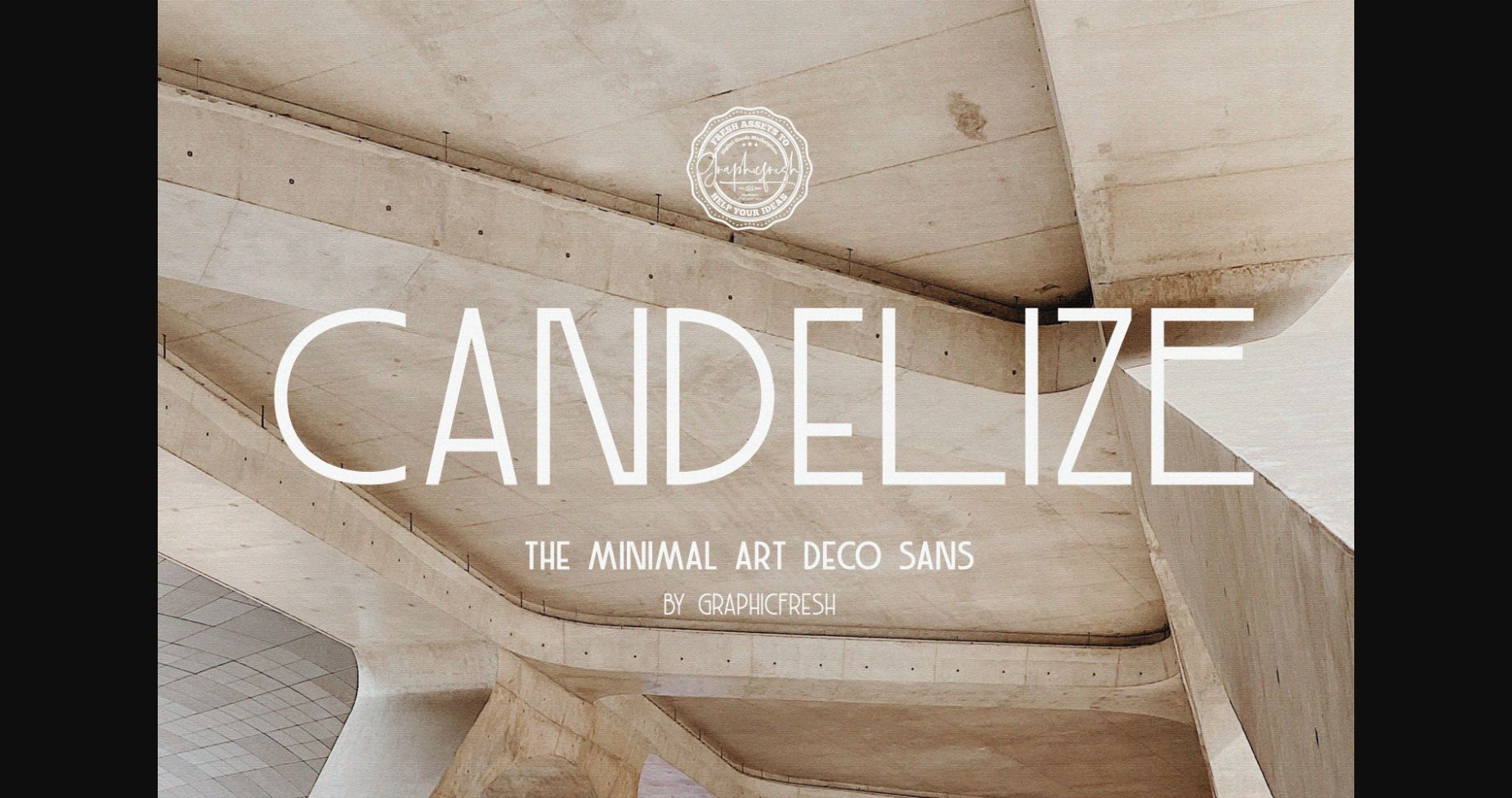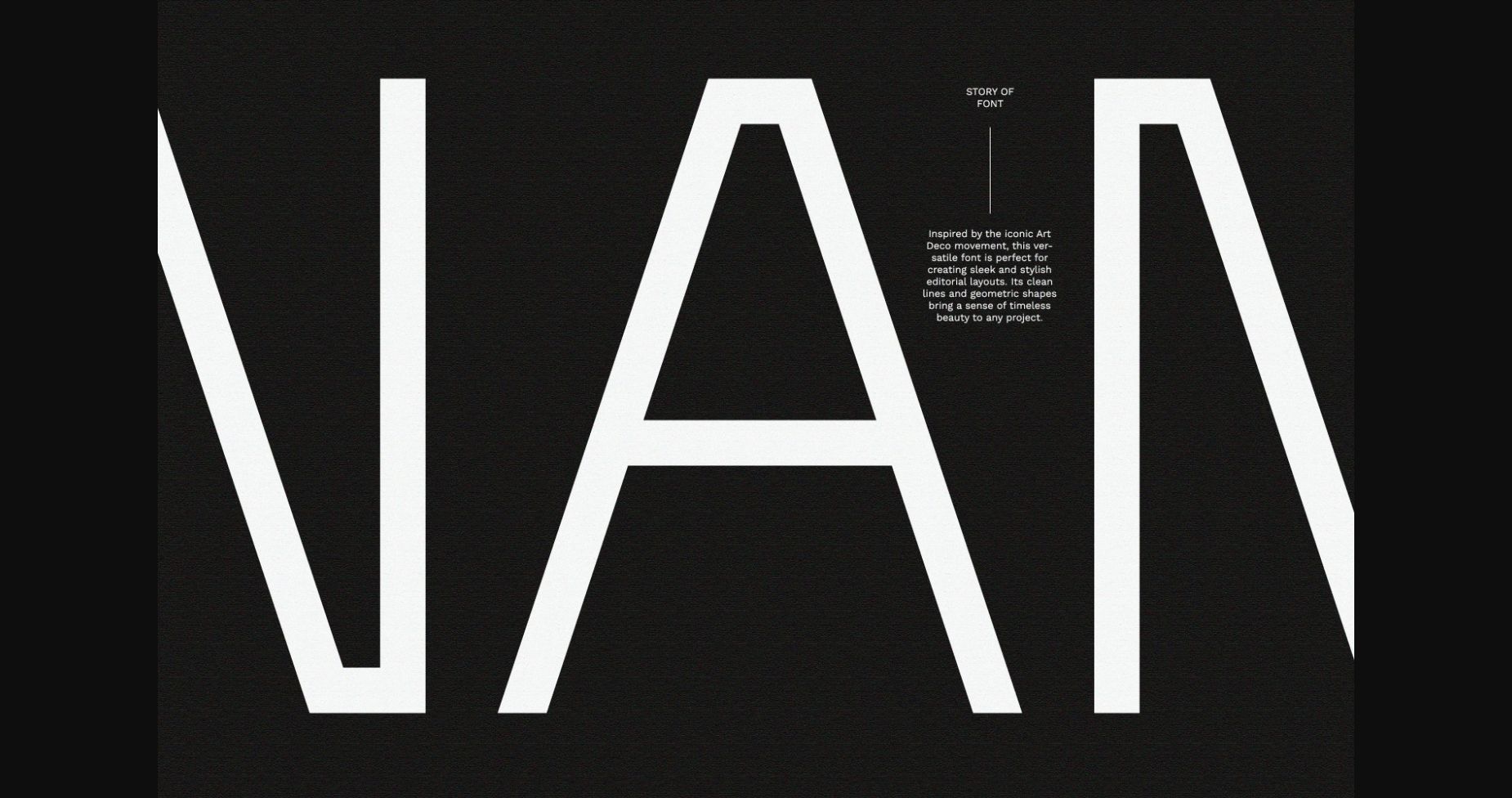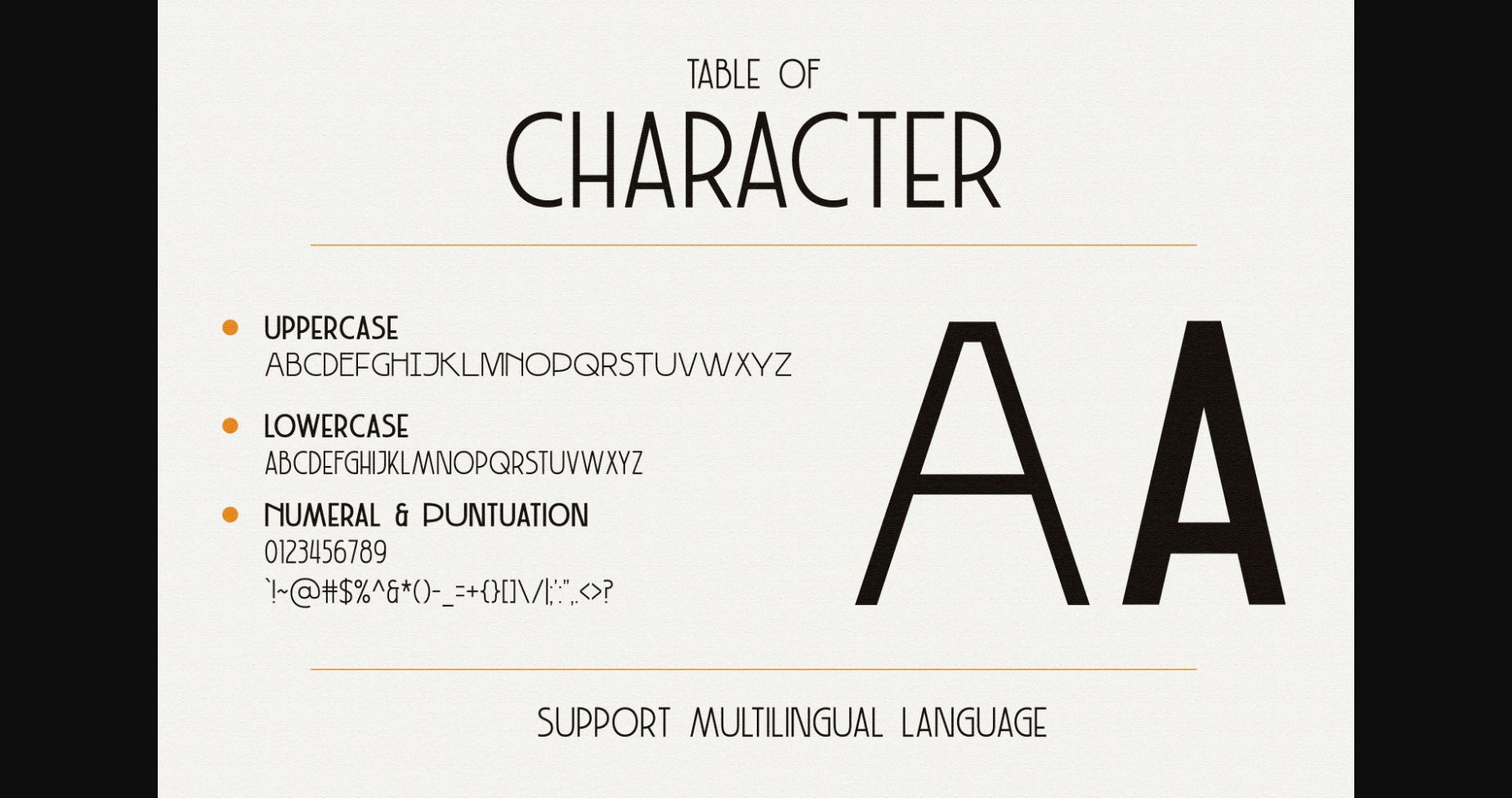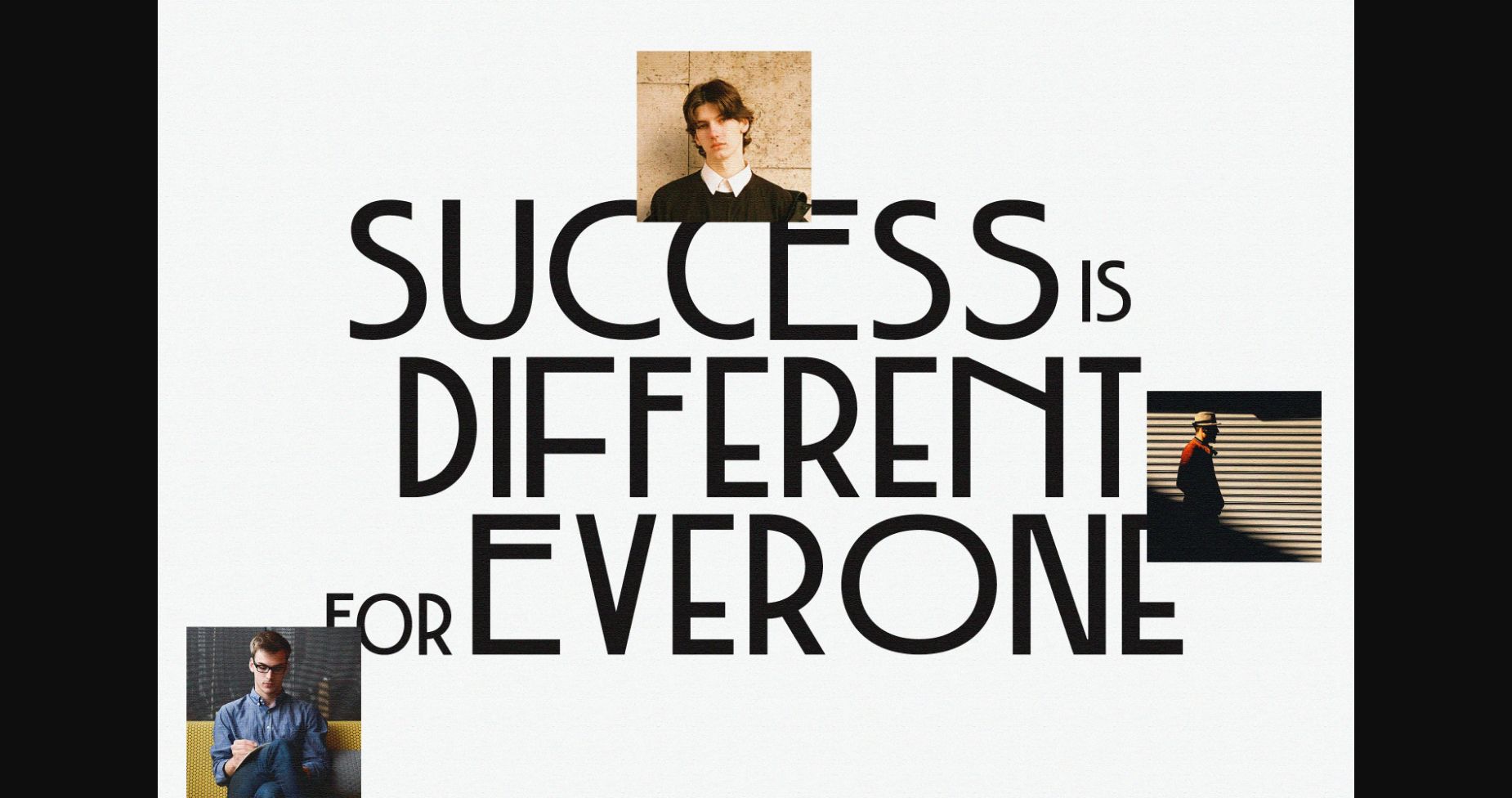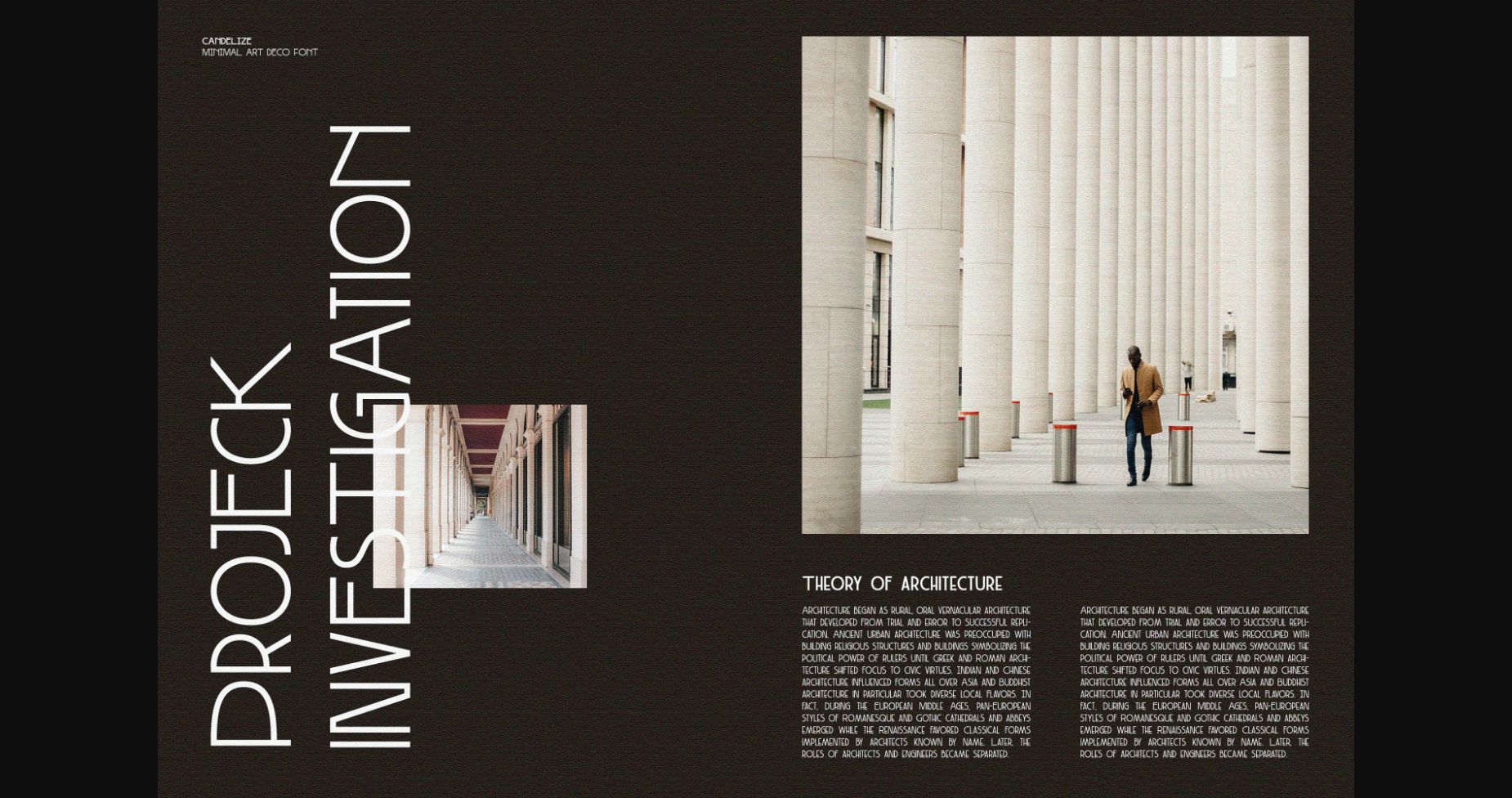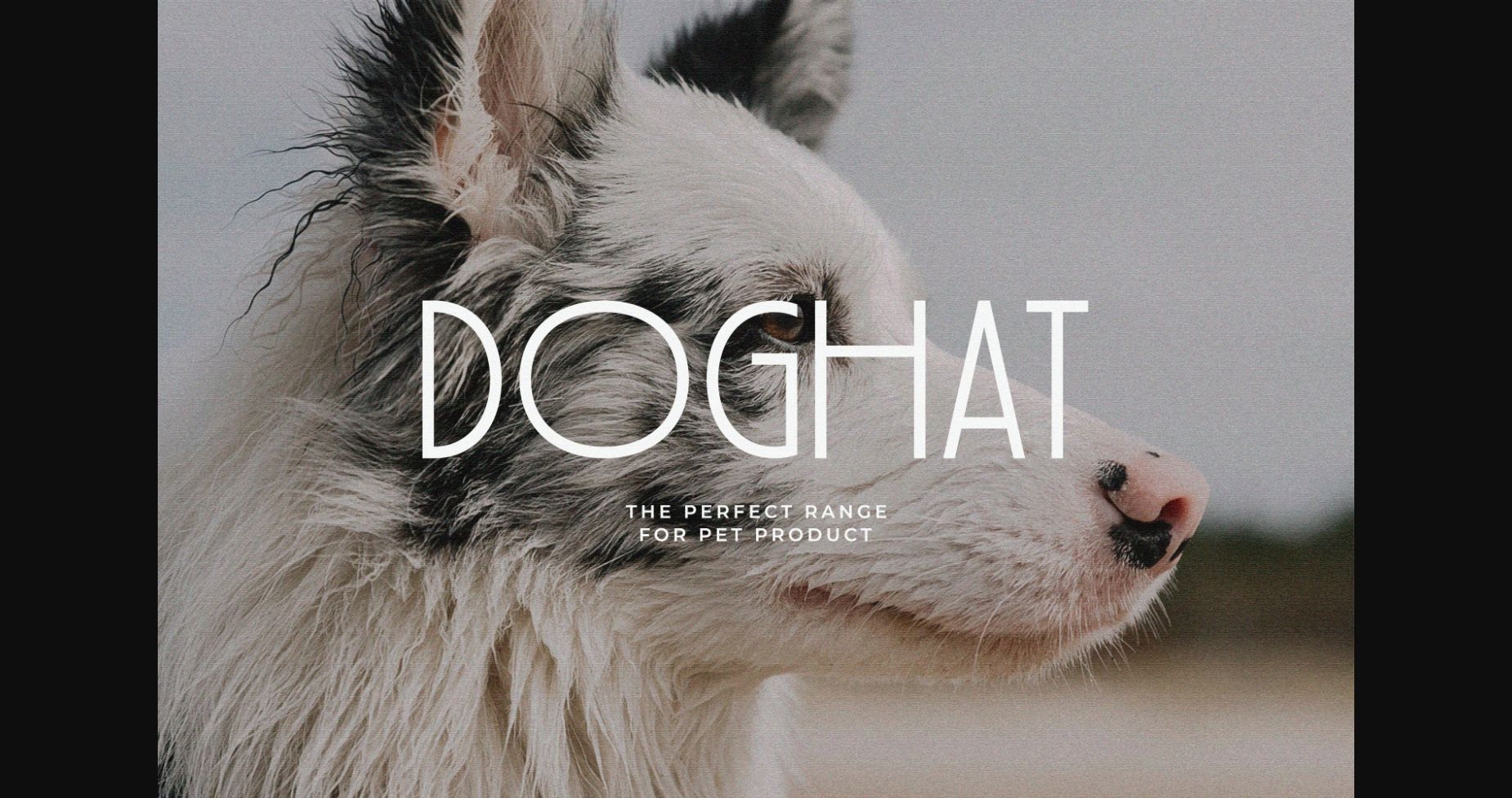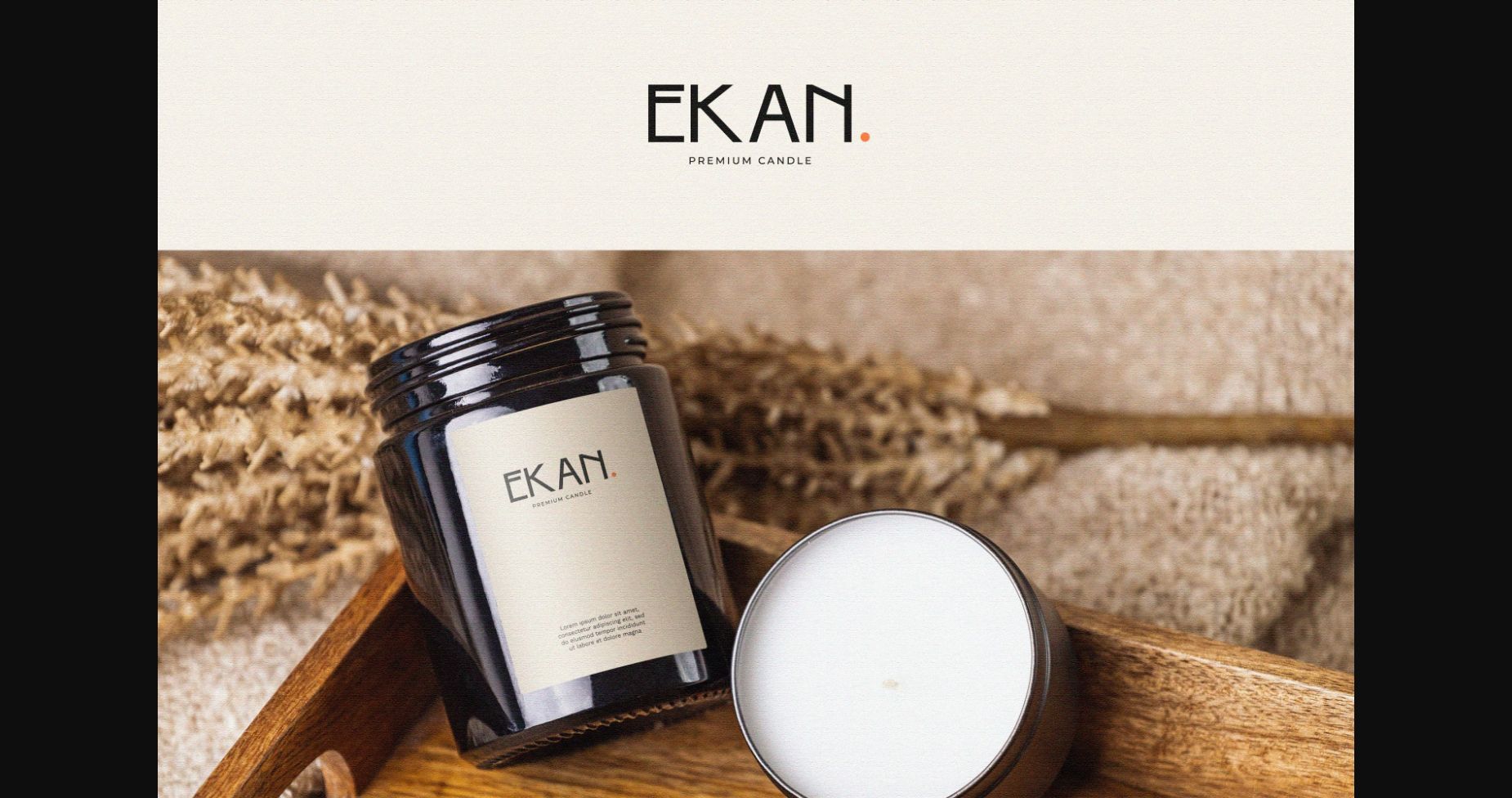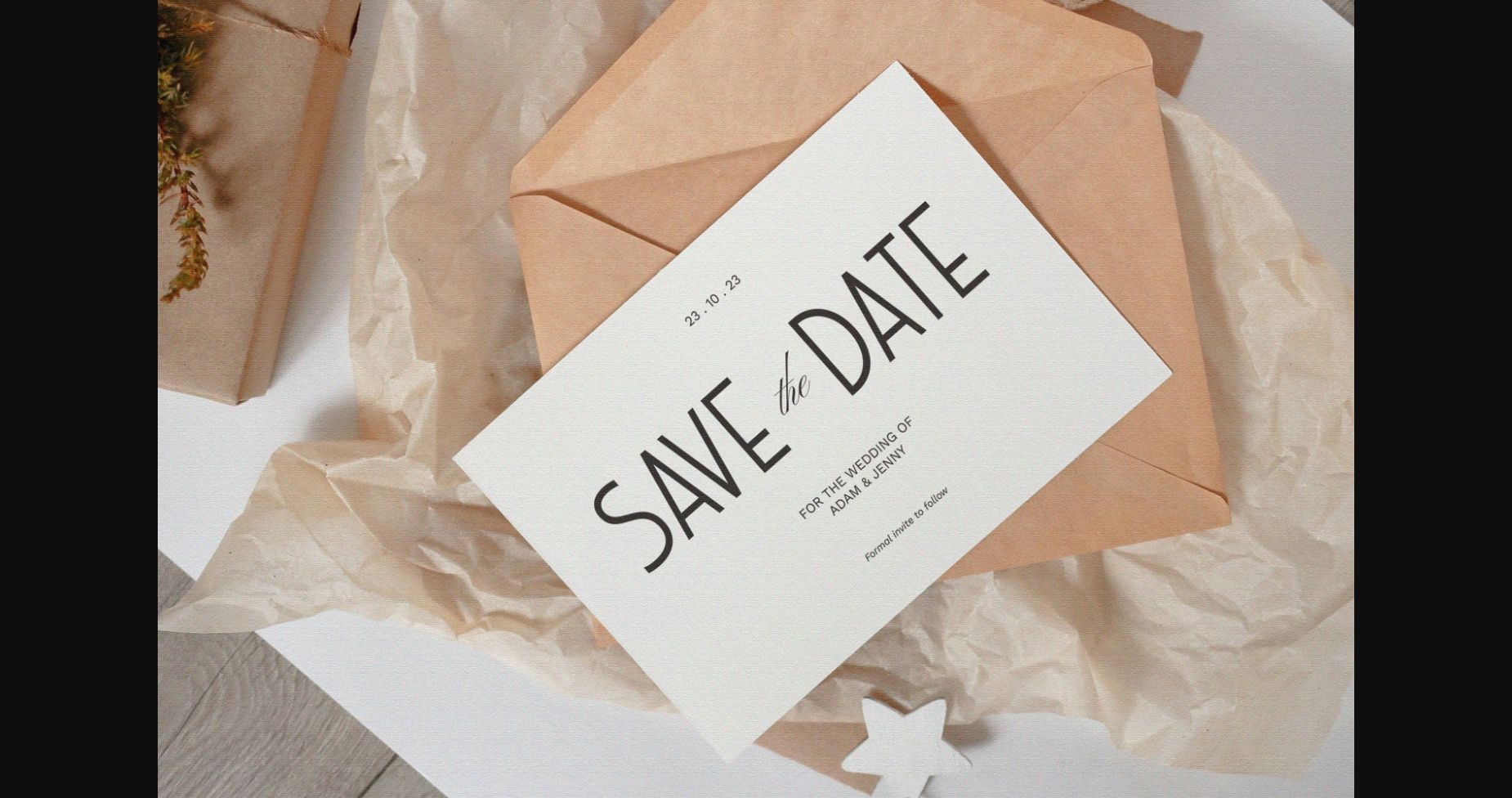
Candelize Font
About Candelize Font
Candelize is a classic yet modern and elegant typeface that adds a touch of sophistication to your logo designs. Inspired by the iconic Art Deco movement, this versatile font is perfect for creating sleek and stylish editorial layouts.